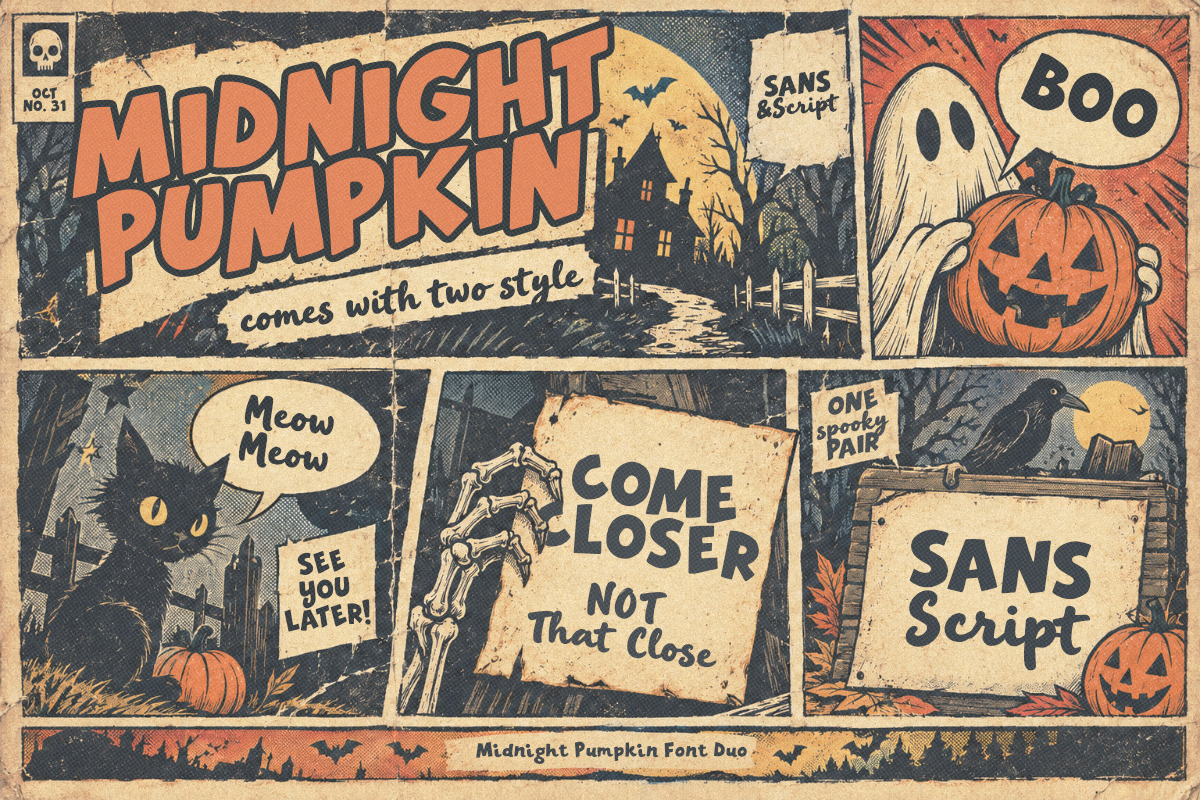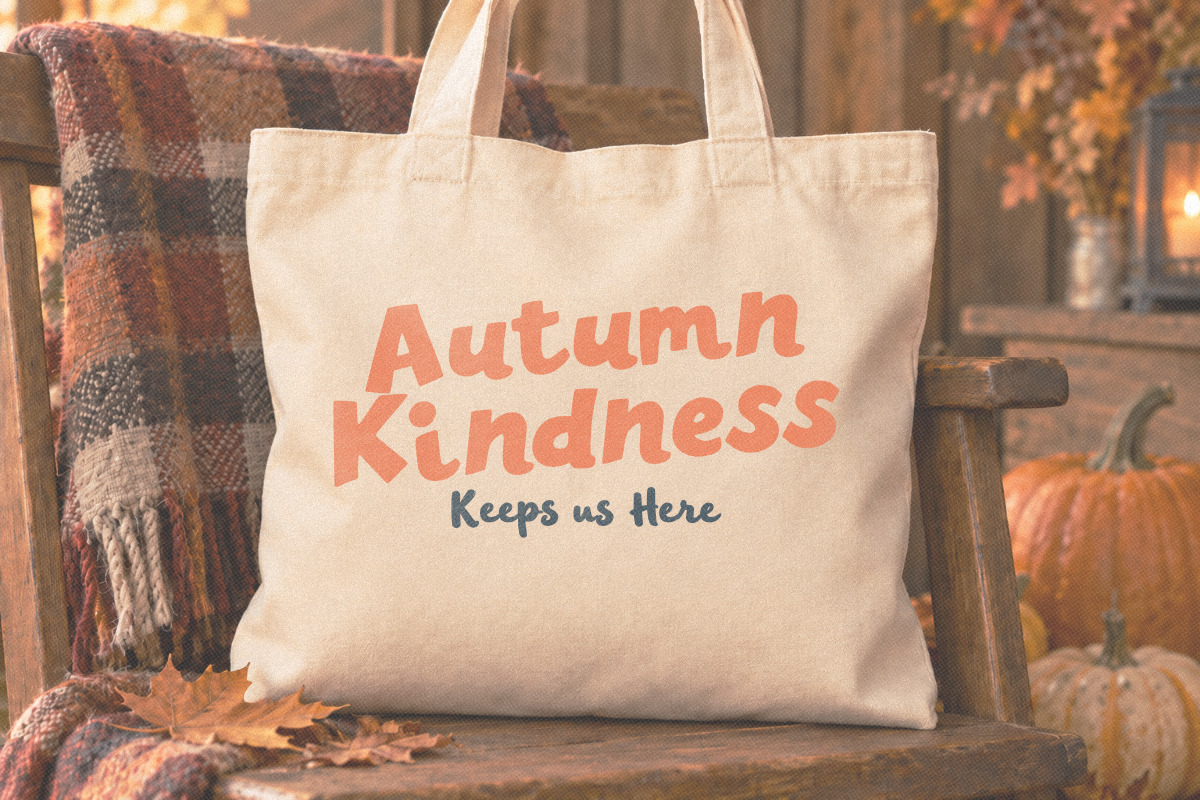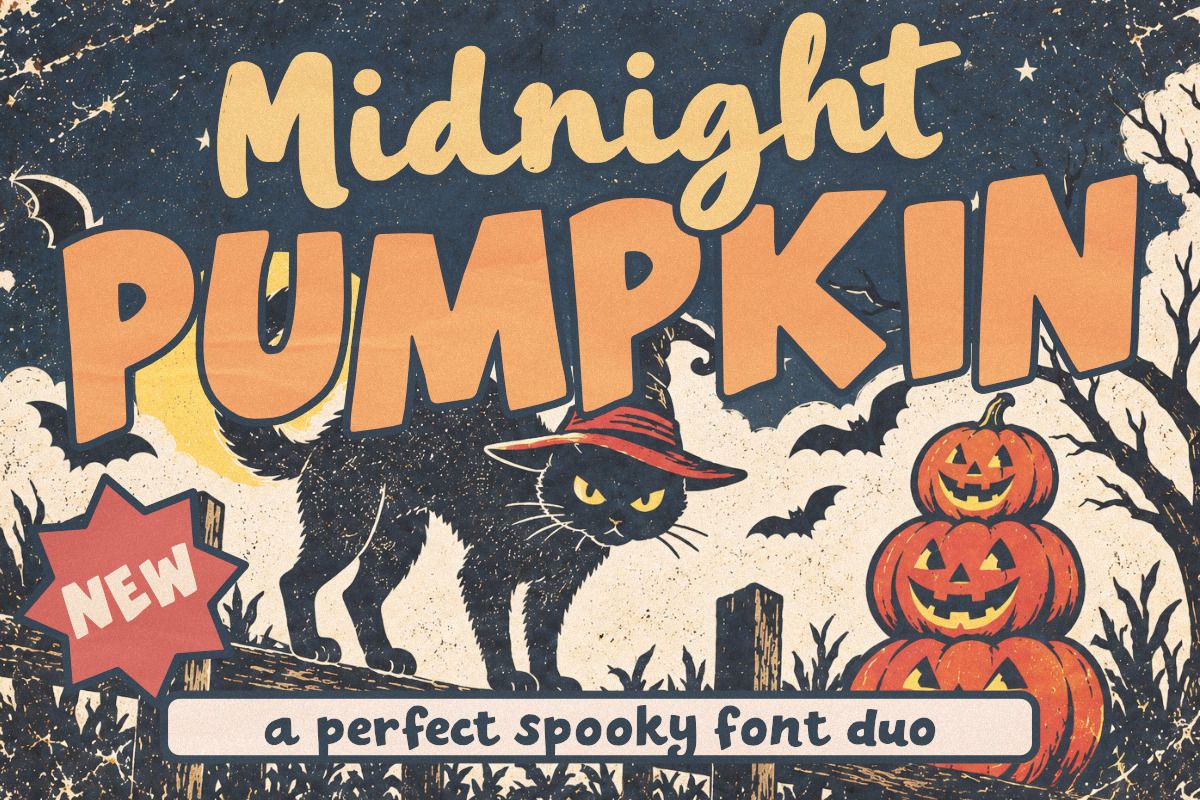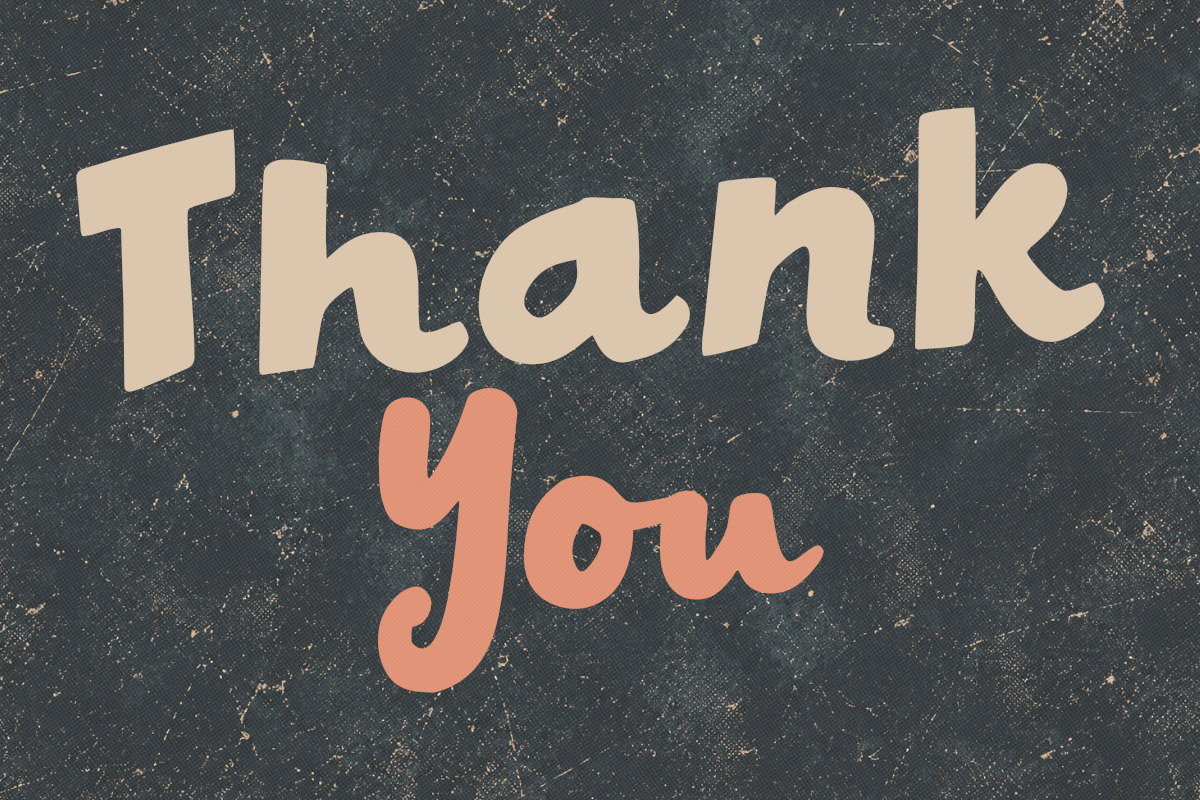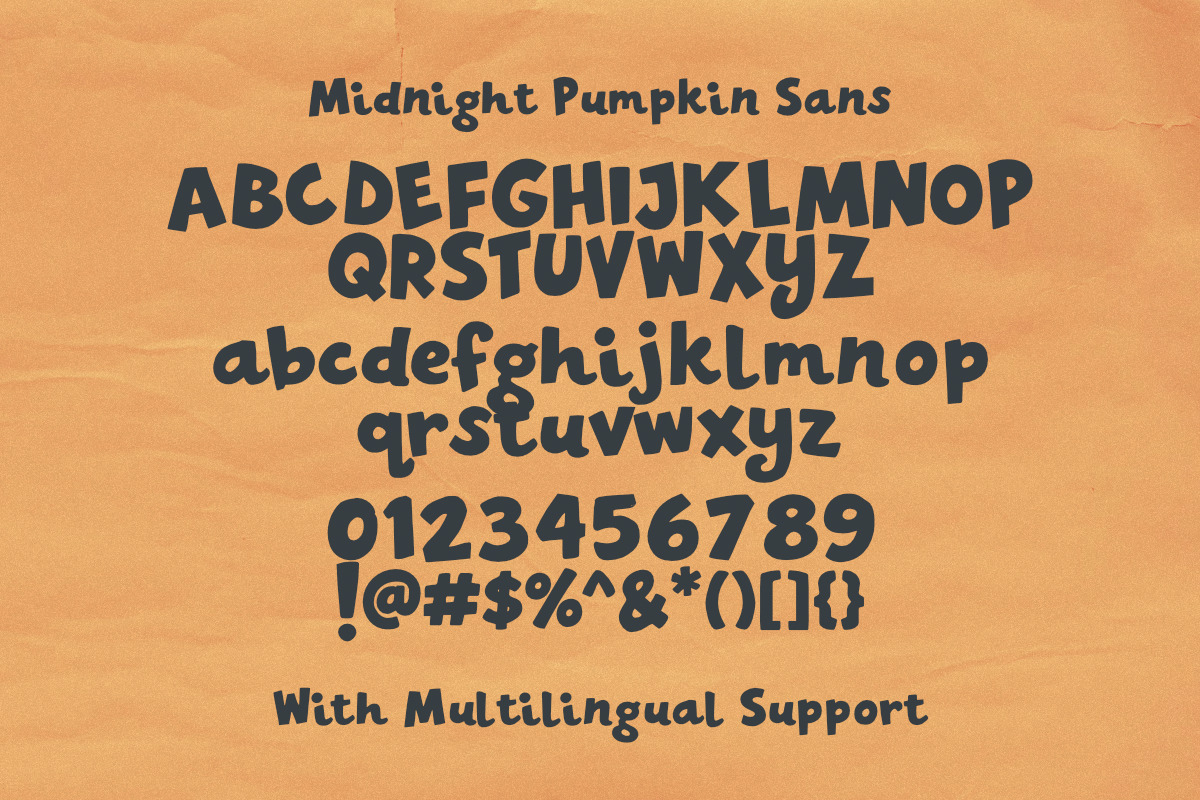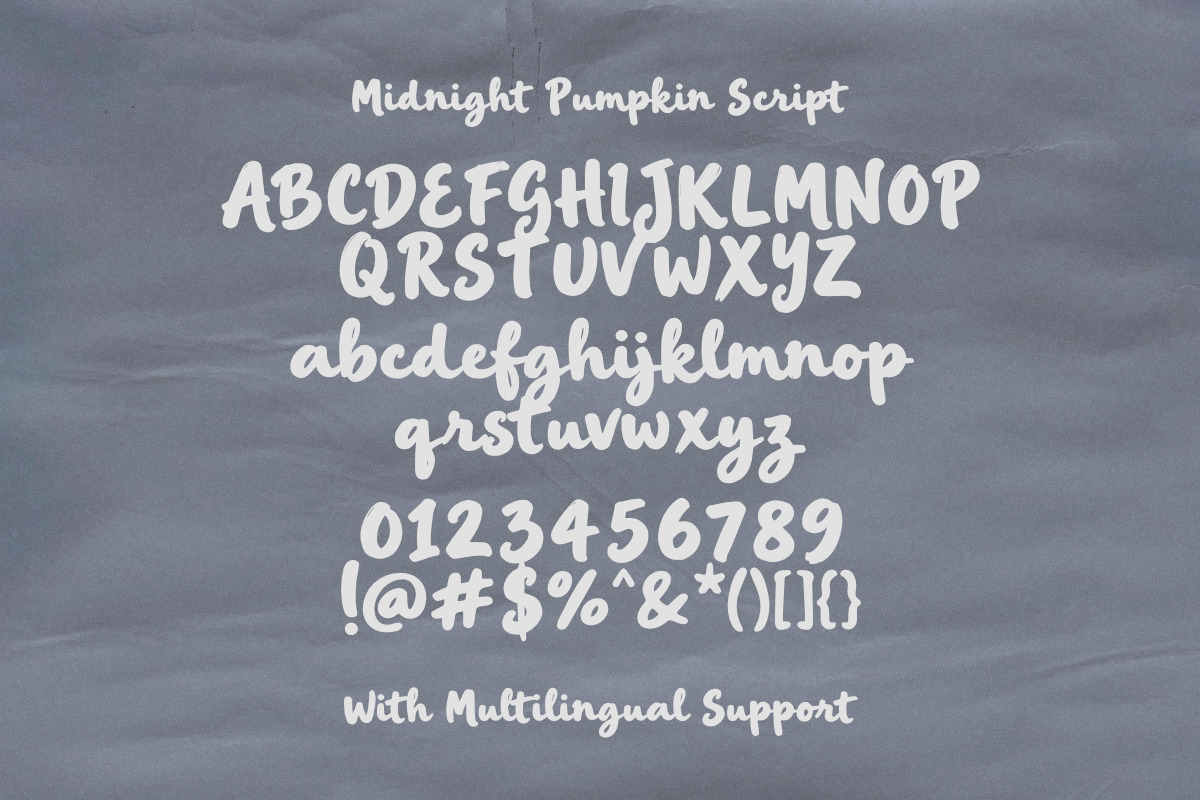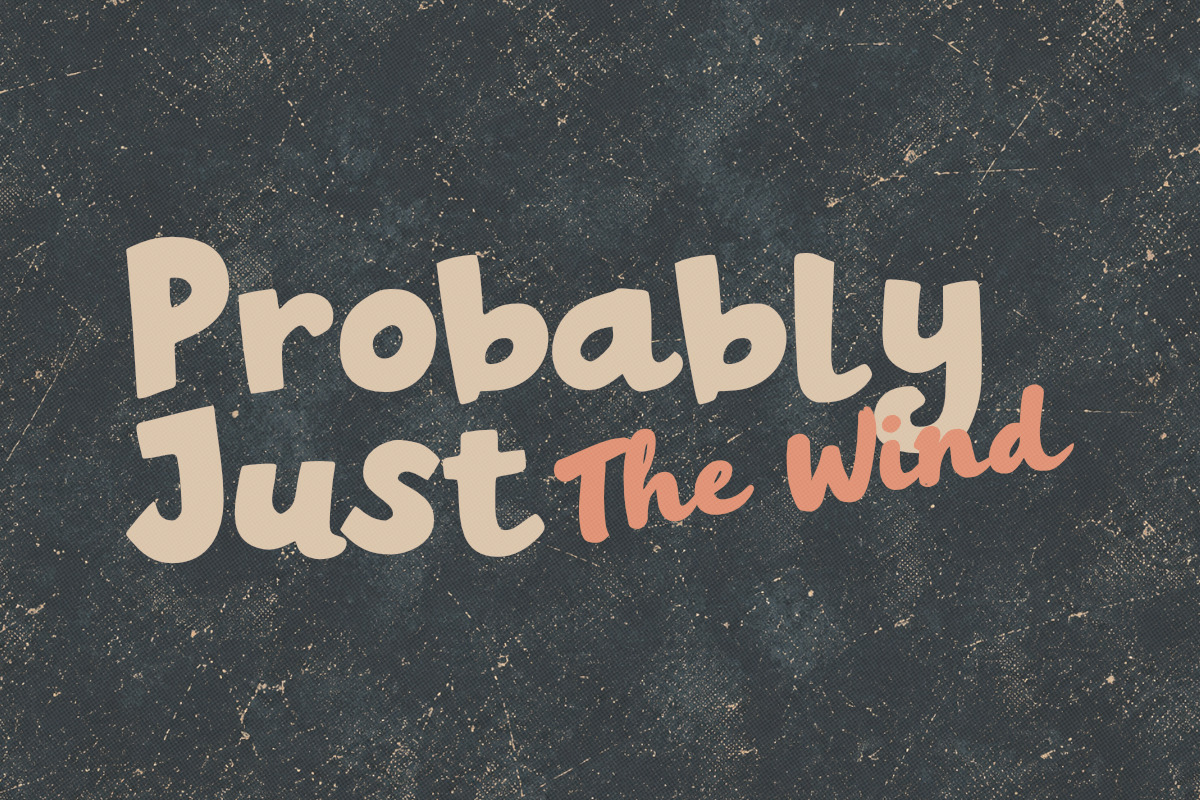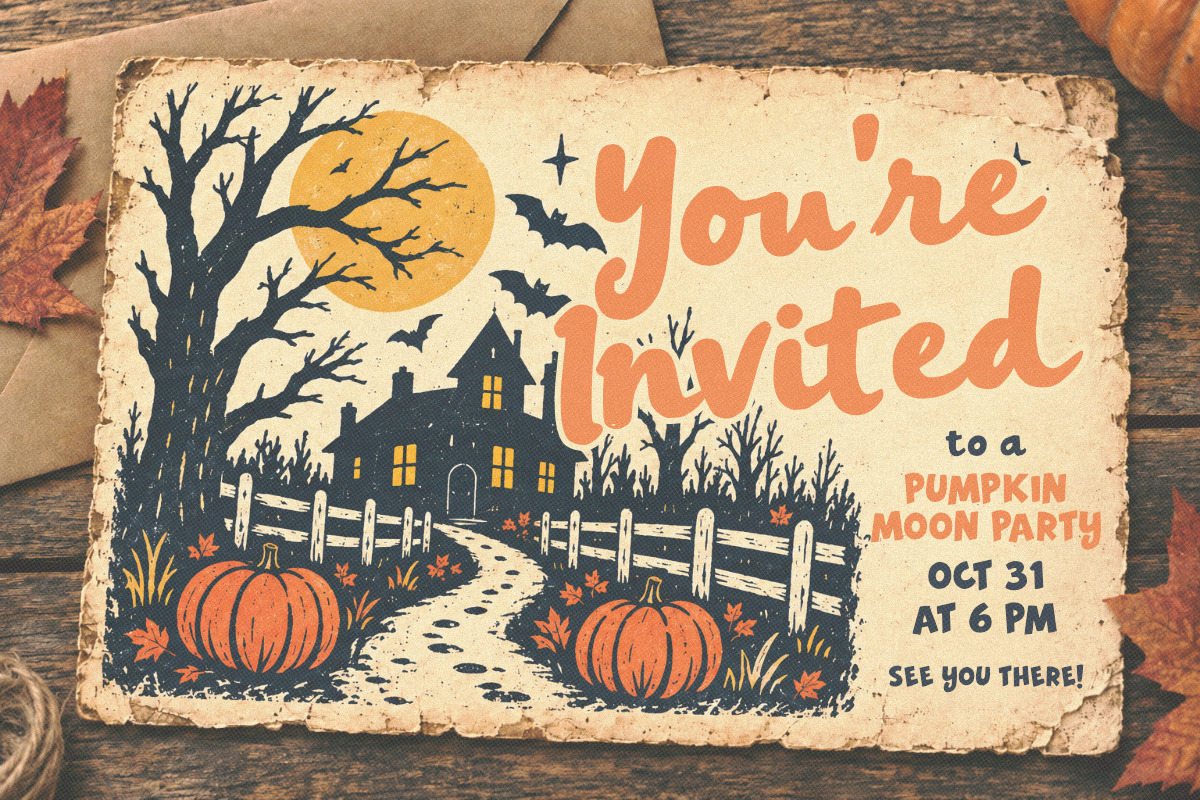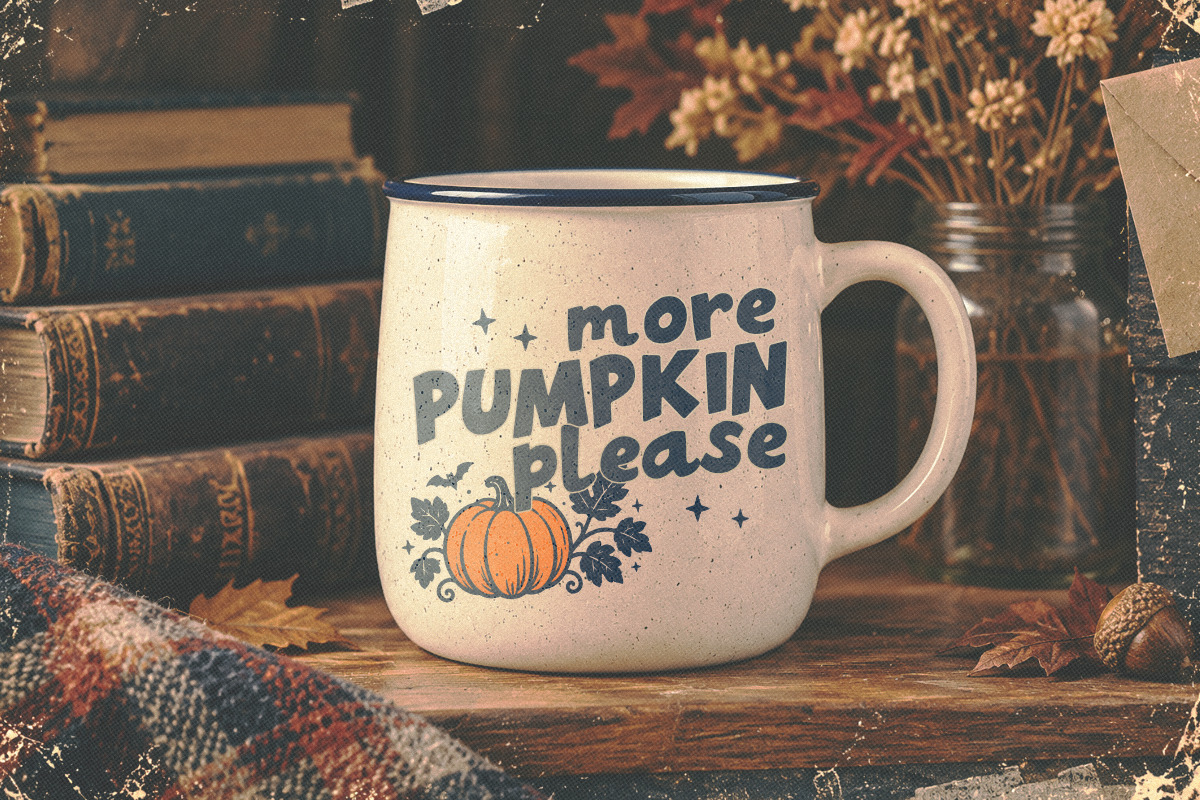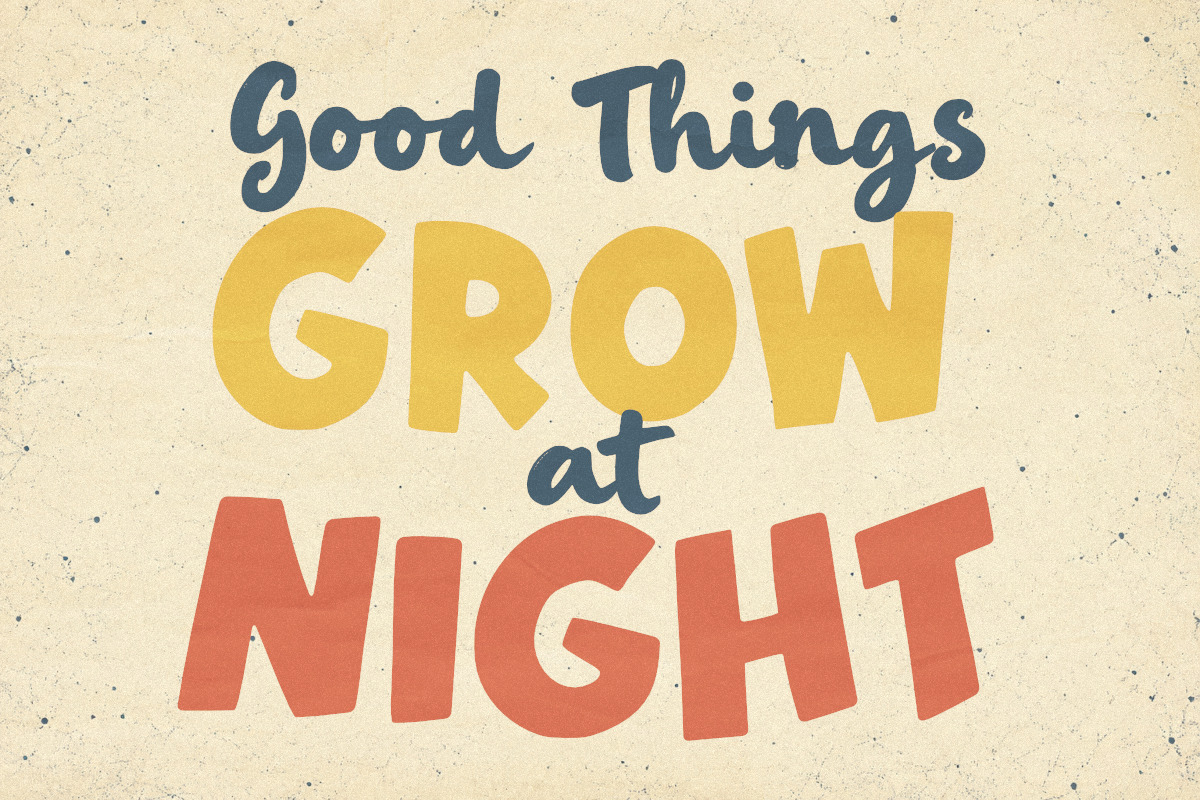
Midnight Pumpkin - Font Duo
Midnight Pumpkin is a playful retro Halloween font duo featuring a bold, chunky sans style paired with a loose handwritten script. Inspired by vintage seasonal posters, old comic printing, pumpkin patches, haunted houses, and nostalgic autumn graphics, it brings a warm spooky character to your designs without feeling overly dark.
The sans style works especially well for bold headlines, posters, packaging, apparel, invitations, and display typography, while the script adds a more casual handwritten touch for quotes, accents, labels, and supporting text. Together, they make it easy to create expressive Halloween-themed layouts with a cohesive vintage feel.
Perfect for Halloween posters, party invitations, spooky branding, T-shirts, tote bags, stickers, social media graphics, seasonal packaging, greeting cards, retro illustrations, and autumn-themed projects.